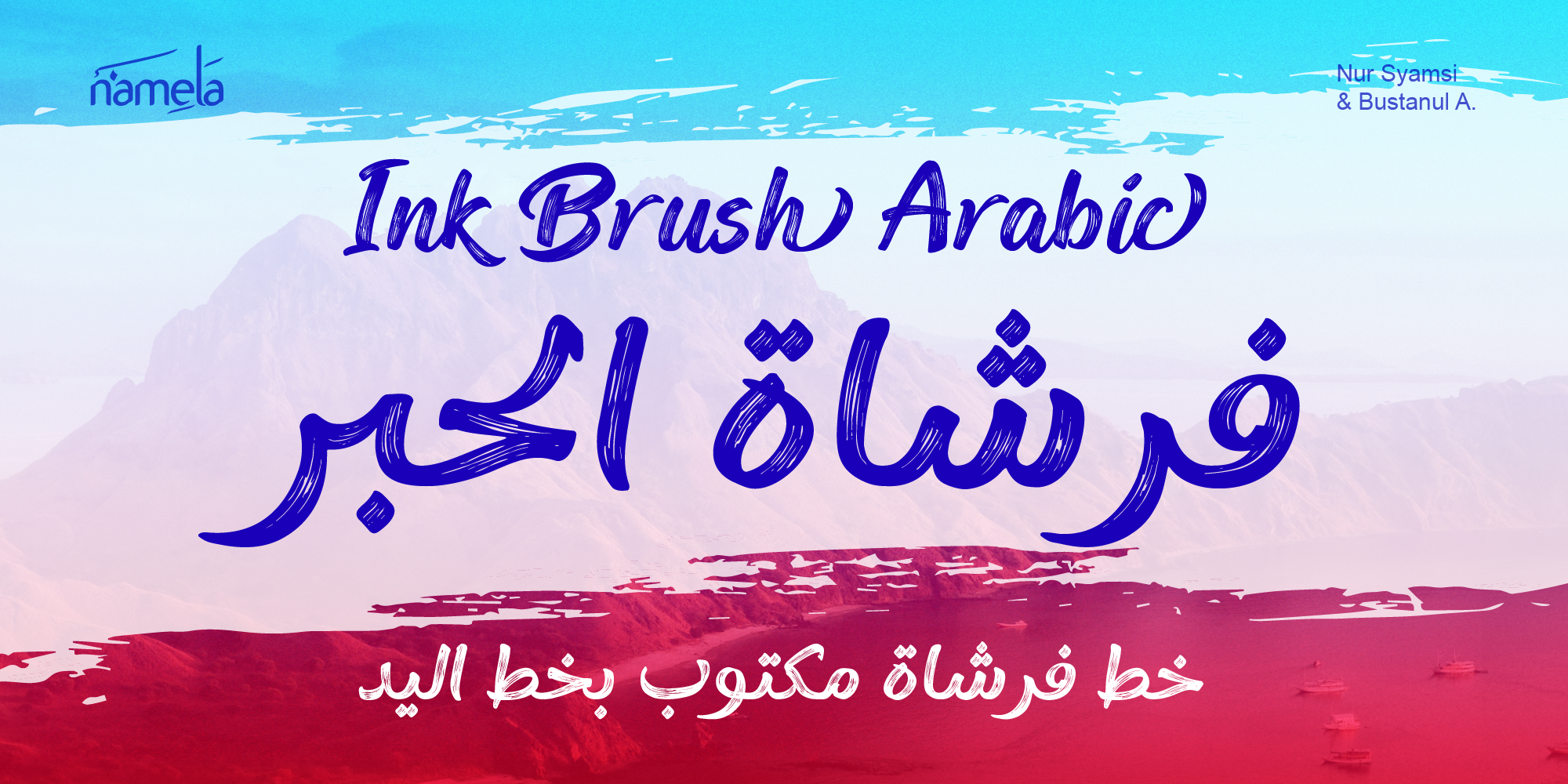
The Ink Brush Arabic Font Free Download is a dynamic and expressive typeface inspired by traditional Arabic calligraphy with a modern brush stroke twist. It’s perfect for cultural branding, artistic posters, book covers, fashion labels, and sophisticated event invitations.
What makes the Ink Brush Arabic Font so exciting is its fluidity and authenticity. The brush-style strokes bring a handcrafted, artistic feel that beautifully blends tradition with contemporary design, making your projects stand out with elegance.
The Ink Brush Arabic Font family includes Regular and Bold styles, offering versatility for both decorative and readable text layouts.
If you want to add cultural richness and artistic flair to your creative work, the Ink Brush Arabic Font Free Download is an excellent choice. Download it today to test its unique style and elevate your designs.